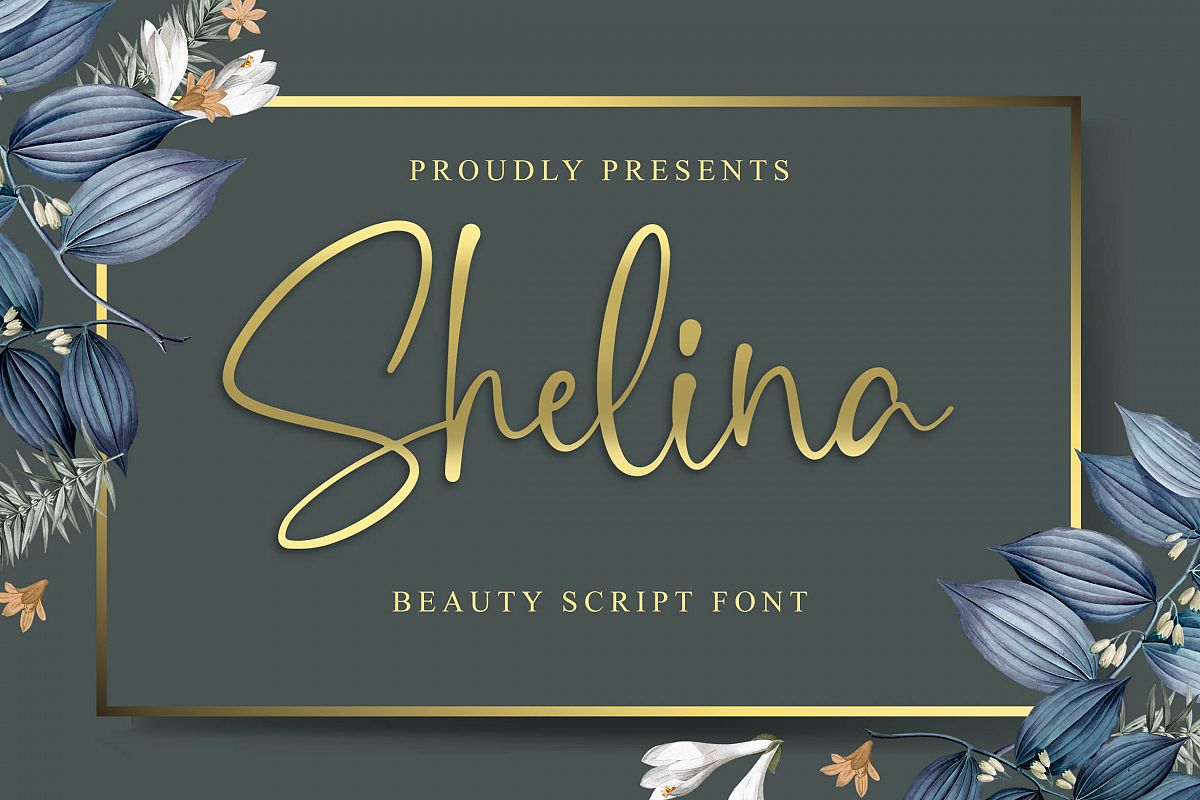
Introducing of our new product the name is Shelina Beauty Script Font. Shelina inspired by Beauty calligraphy style this font is a fun theme very good for signature, poster, fashion, wedding, branding etc
MULTILINGUAL ACCENT :ŽžŠŒšŸÀÁÂÃÄÅÆÇÈÉÊËÌÍÎÏÐŁÑÒÓÔÕÖØÙÚÛÜÝßàáâãäåæçèéêëìíîïłñòóôõöøùúûüýÿ
FEATURES :- Uppercase
- PUA Encode
- Opentype